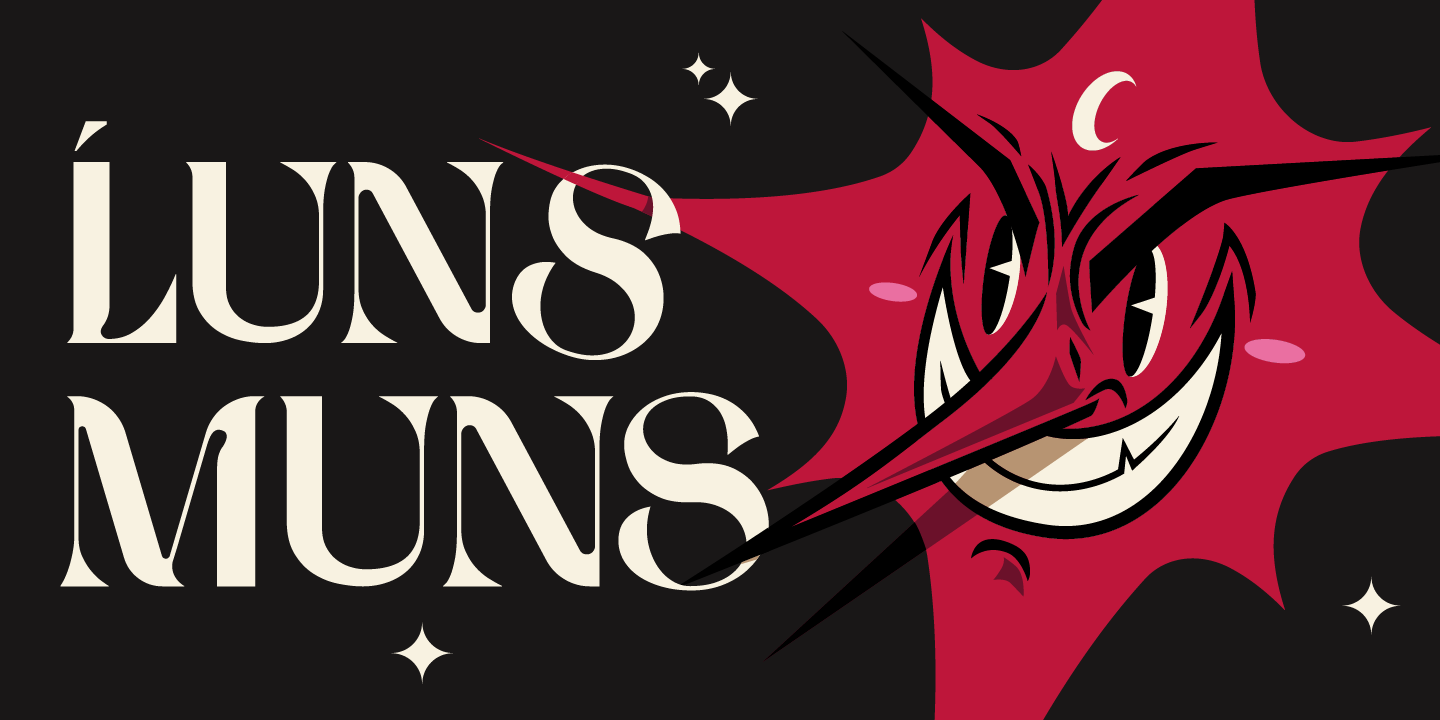
SK Luns Muns Font excels in various design applications including quirky branding, playful logos, children's book illustrations, fun social media graphics, creative advertising campaigns, whimsical packaging designs, entertainment posters, and artistic web interfaces. This charming typeface adapts wonderfully to both vibrant digital platforms and imaginative print materials, making it ideal for designers seeking personality and distinctive character in their visual communications.
SK Luns Muns Font generates excitement among creative professionals due to its unique character and playful styling that instantly conveys fun and originality. The font's distinctive letterforms and unconventional proportions create an immediate sense of creativity and memorable brand identity. Its quirky personality makes it particularly appealing for brands wanting to communicate innovation, friendliness, and creative thinking in their visual design approach.
The SK Luns Muns Font family encompasses multiple weights and styles including Regular, Bold, Light, Outline, and Shadow variations. Each family member maintains playful design principles while offering distinct creative characteristics. The Light weight provides gentle whimsy for delicate applications, while the Bold version delivers strong creative impact for eye-catching headlines and memorable brand statements.
Creative designers frequently choose SK Luns Muns Font Free Download for projects requiring both artistic expression and brand memorability. This typeface demonstrates remarkable versatility across entertainment industries including design agencies, creative studios, children's brands, and innovative companies. Its distinctive character allows organizations to communicate uniqueness while maintaining excellent readability and unforgettable visual personality.